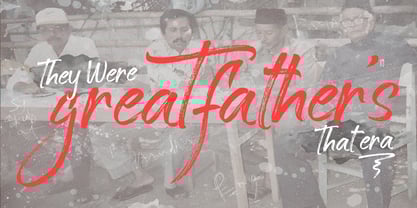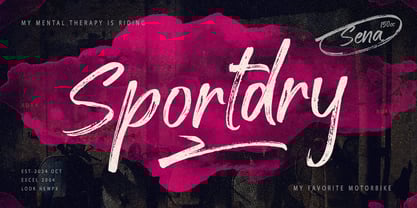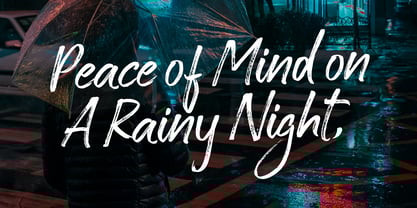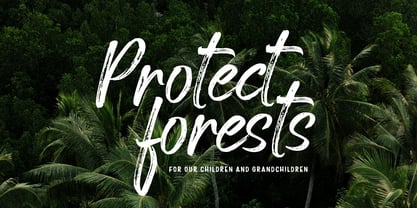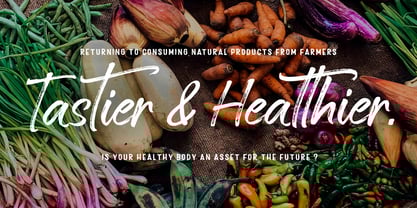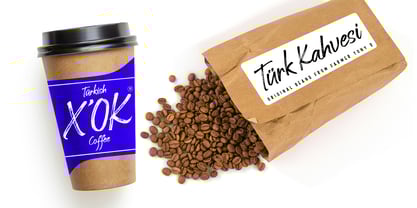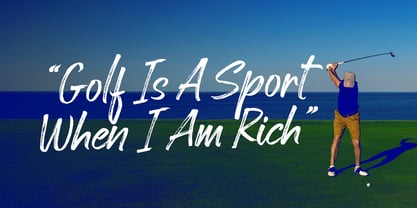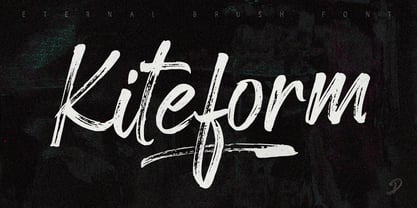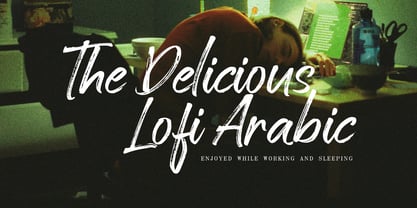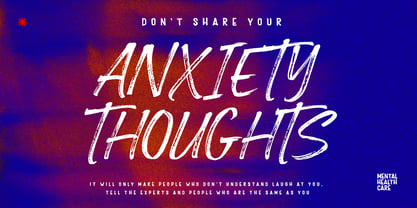
Kiteform
Kiteform is a bold textured brush font that captures raw energy and handcrafted authenticity. Designed with strong, expressive strokes and natural rough textures, it delivers a contemporary yet organic feel that stands out in any composition. Each letter is created with dynamic brush movement, giving it a powerful and slightly edgy personality. The distinctive underscore details add extra character, while stylistic alternates and ligatures allow you to create more engaging and visually appealing typography. Kiteform is perfect for high-impact display purposes, including Poster and headline design, Book covers and editorial titles, Branding and bold logo concepts, Apparel and t-shirt graphics, Social campaigns and awareness projects, Inspirational quotes with strong character, Eye-catching packaging, Digital and print promotional materials. If you're looking for a brush font that feels expressive, textured, and confidently modern, Kiteform is ready to elevate your designs with striking visual impact.